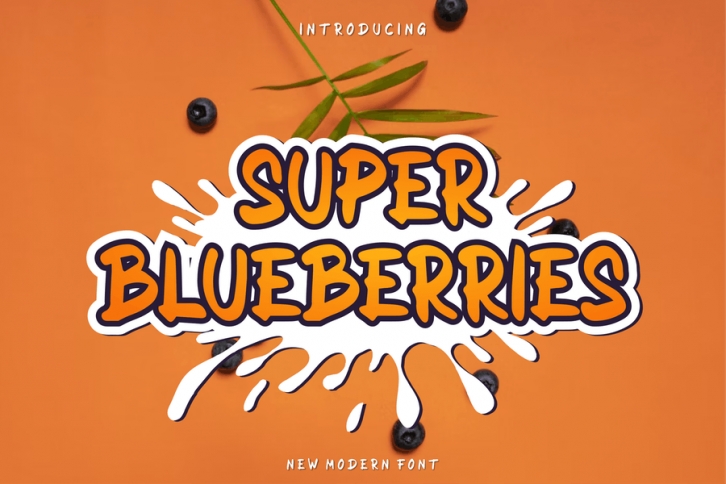
Introducing our new product Super Blueberries Font - Modern Font
Super Blueberries Font- Modern Font is a bold and authentic display font. The font is suitable for any branding project like logo, t-shirt printing, esport, and many more. outstanding in a wide range of contexts.